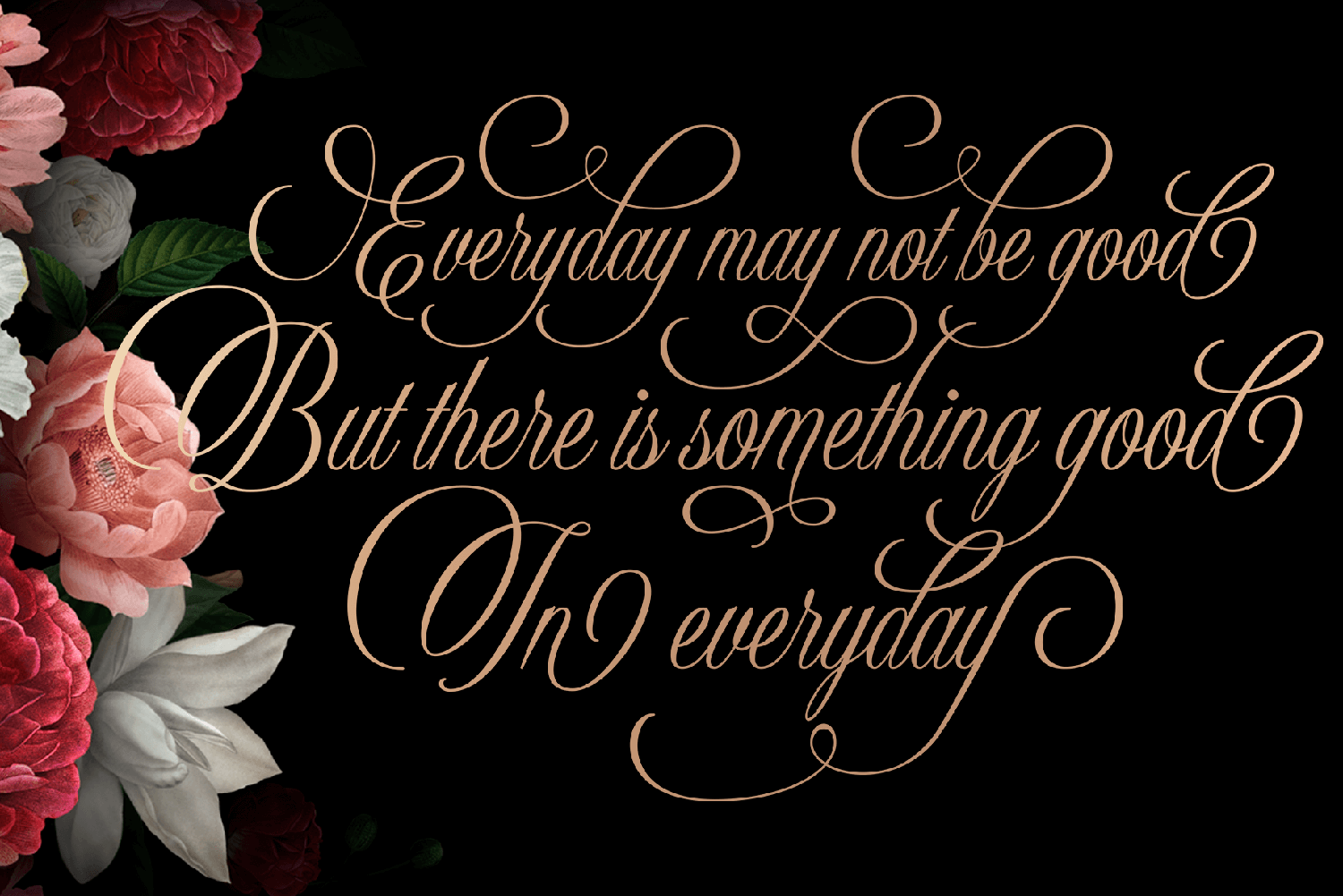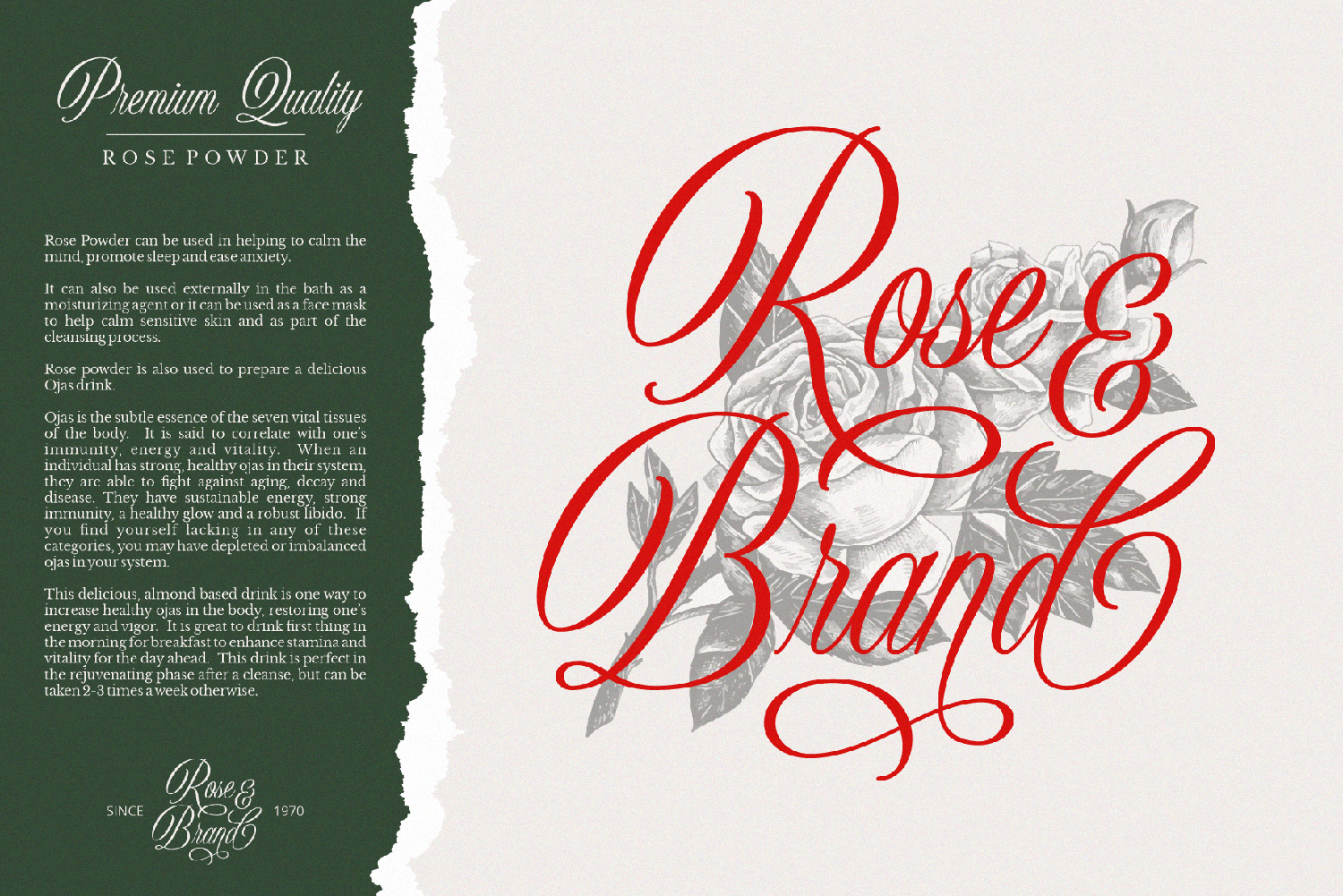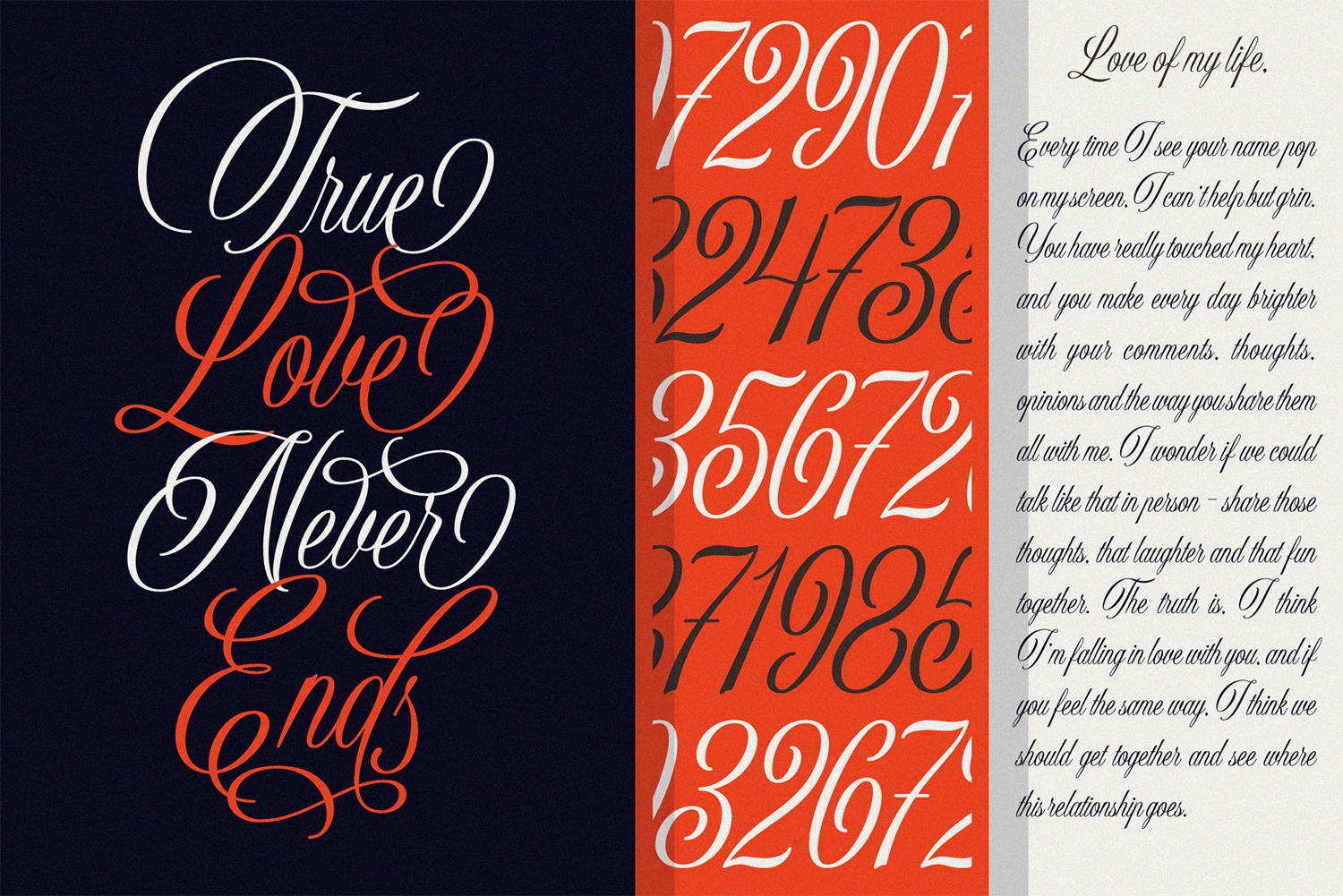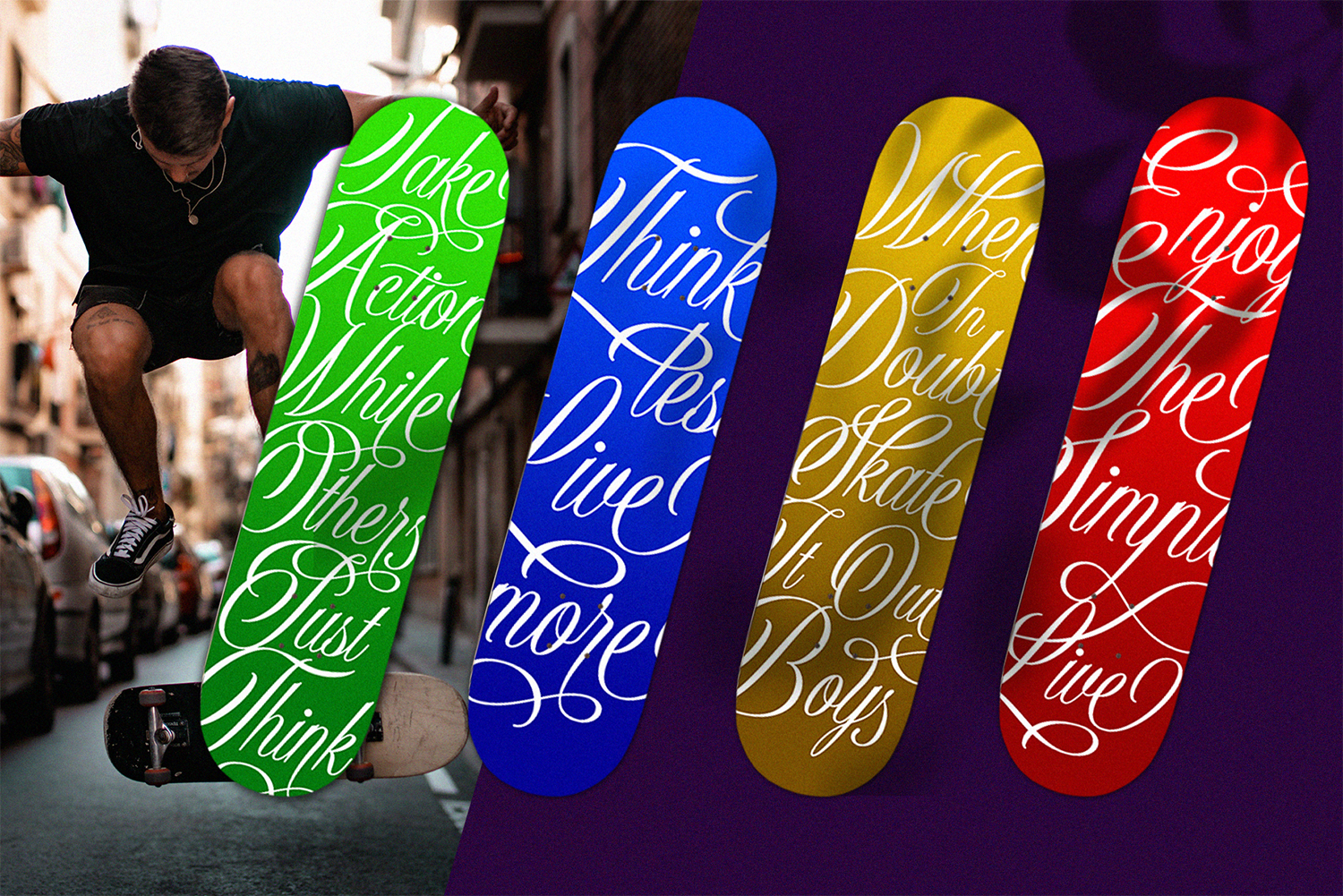
Sholaria Free Font
Sholaria Free Font designed to be a clean and luxurious display script font. Inspired by vintage copperplate style. Carefully made for the best ‘flow’ result. Came with a seamless connection with each other. Ton of ‘necessary’ swash alternates to play with, around 400 glyphs total. This font will suitable for any project. Branding, quotes, headlines, romantic letters, and many more. This free typeface was designed by a talented Subqi Std. If you like it don’t forget to check out the full version.